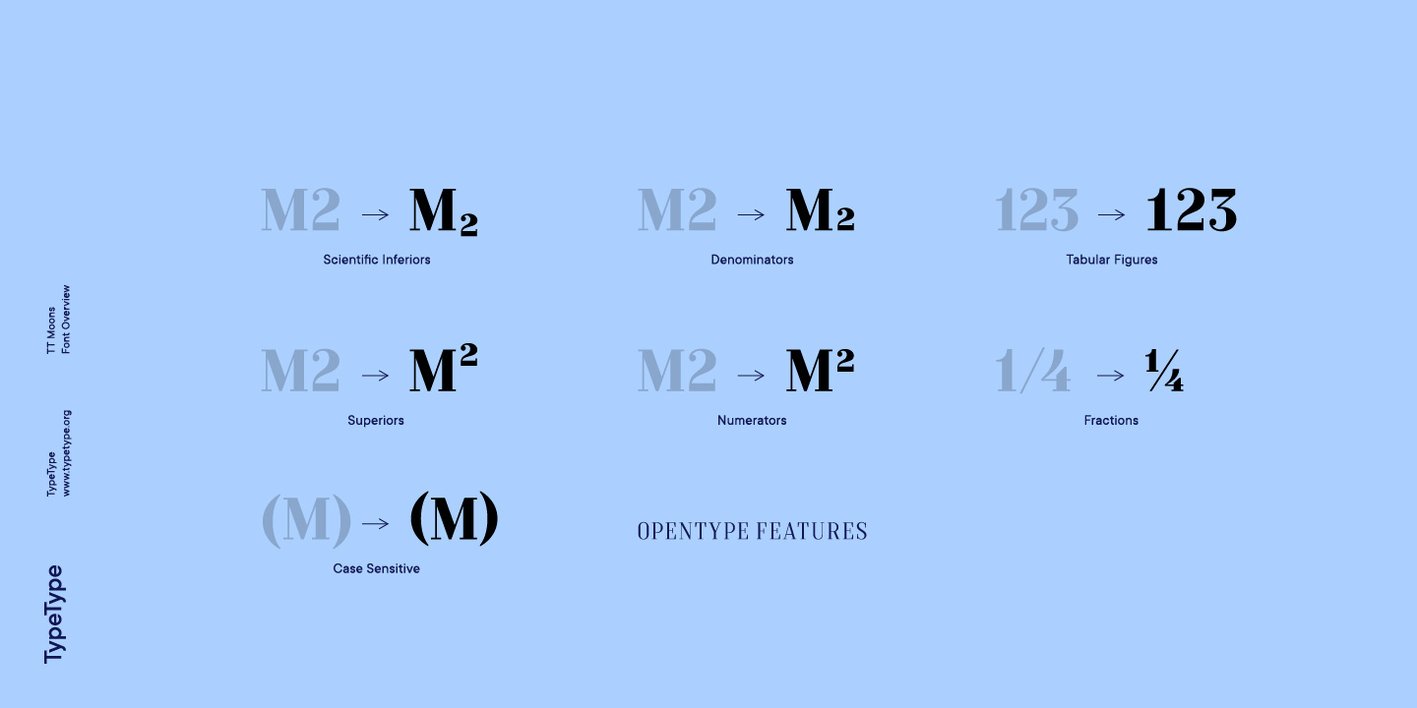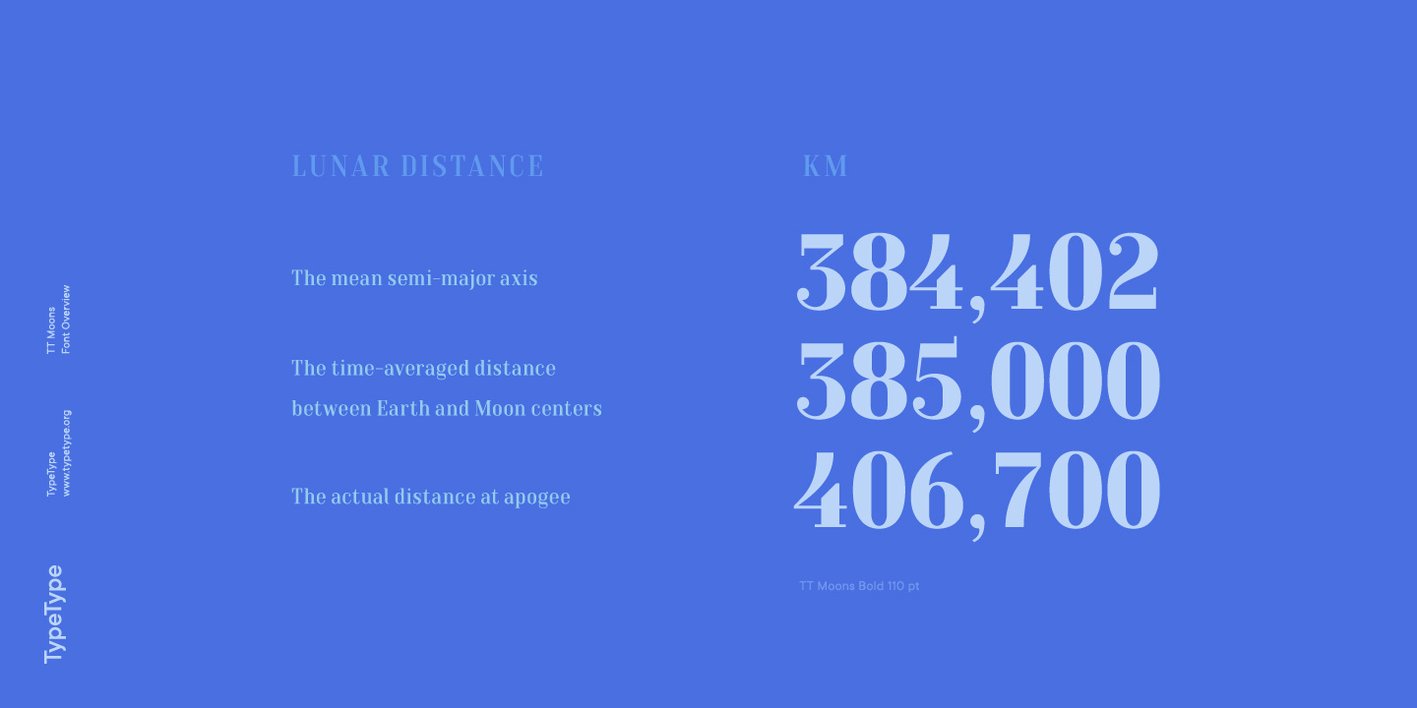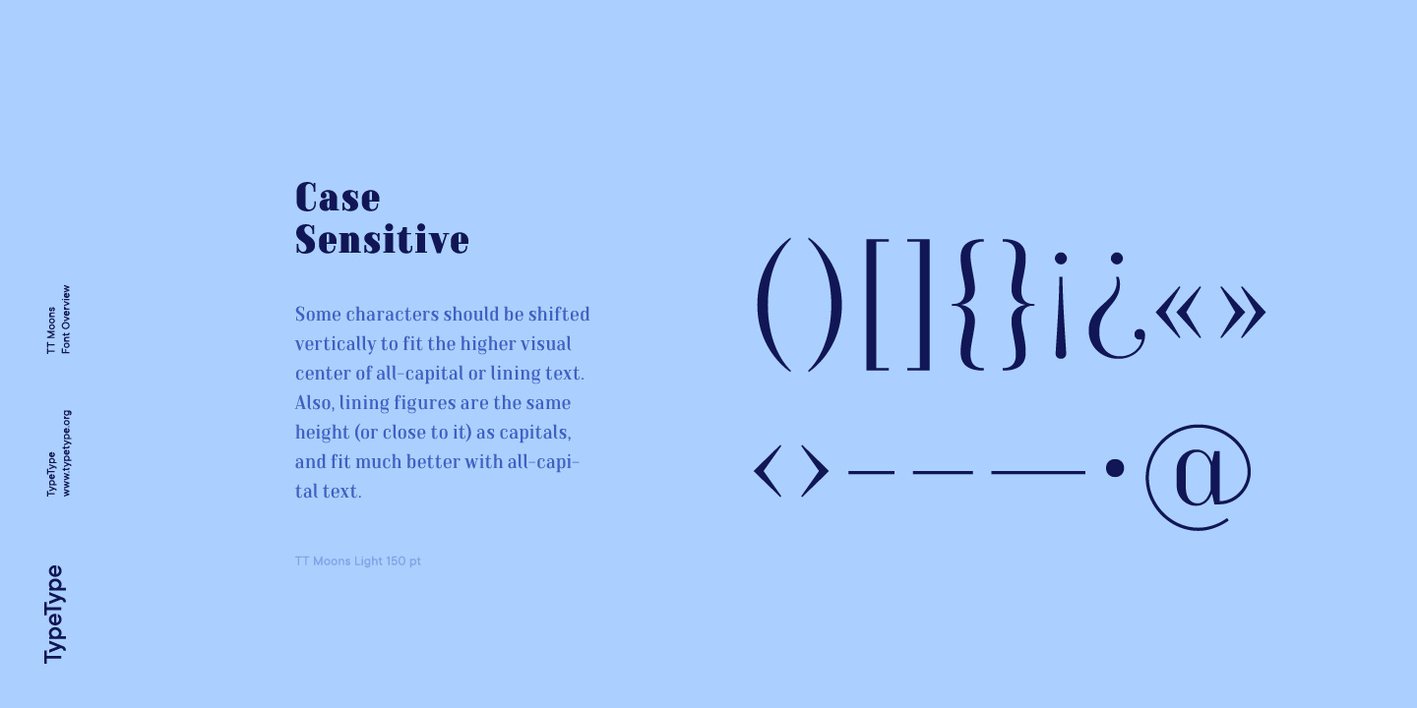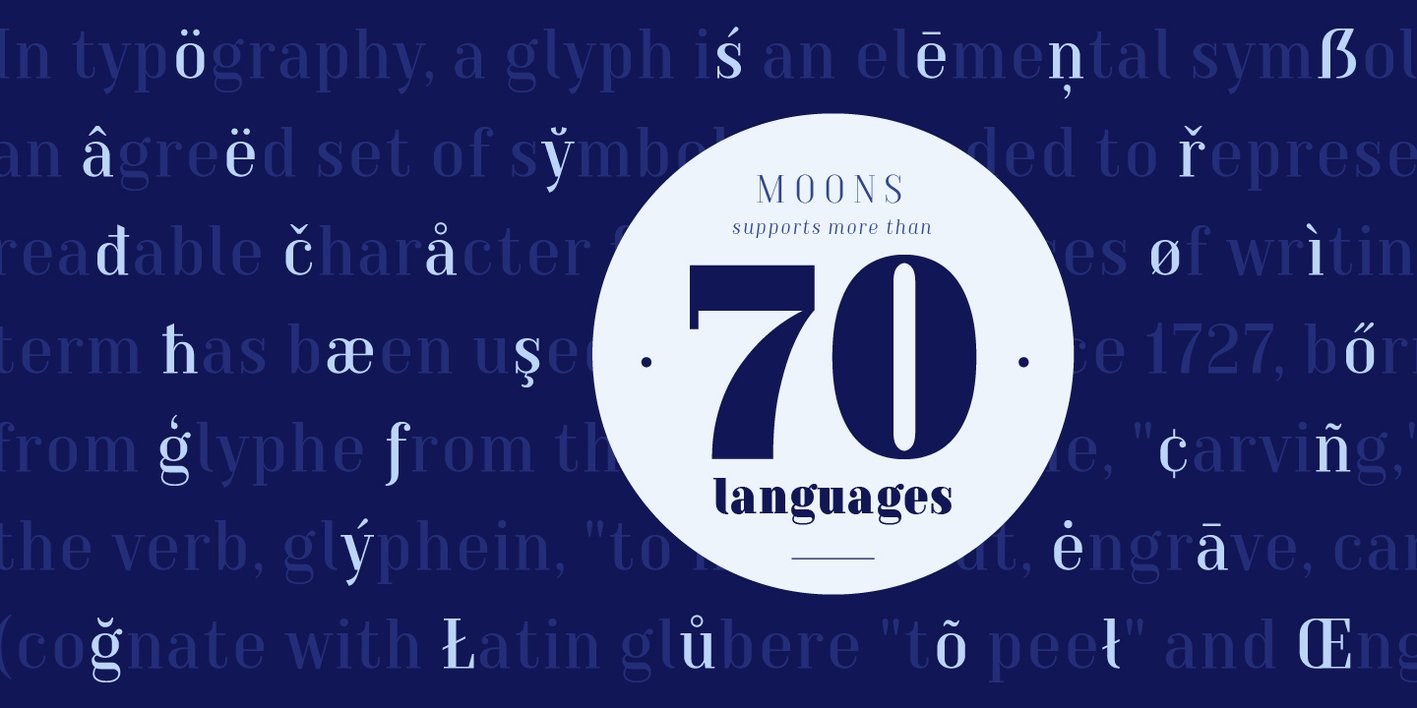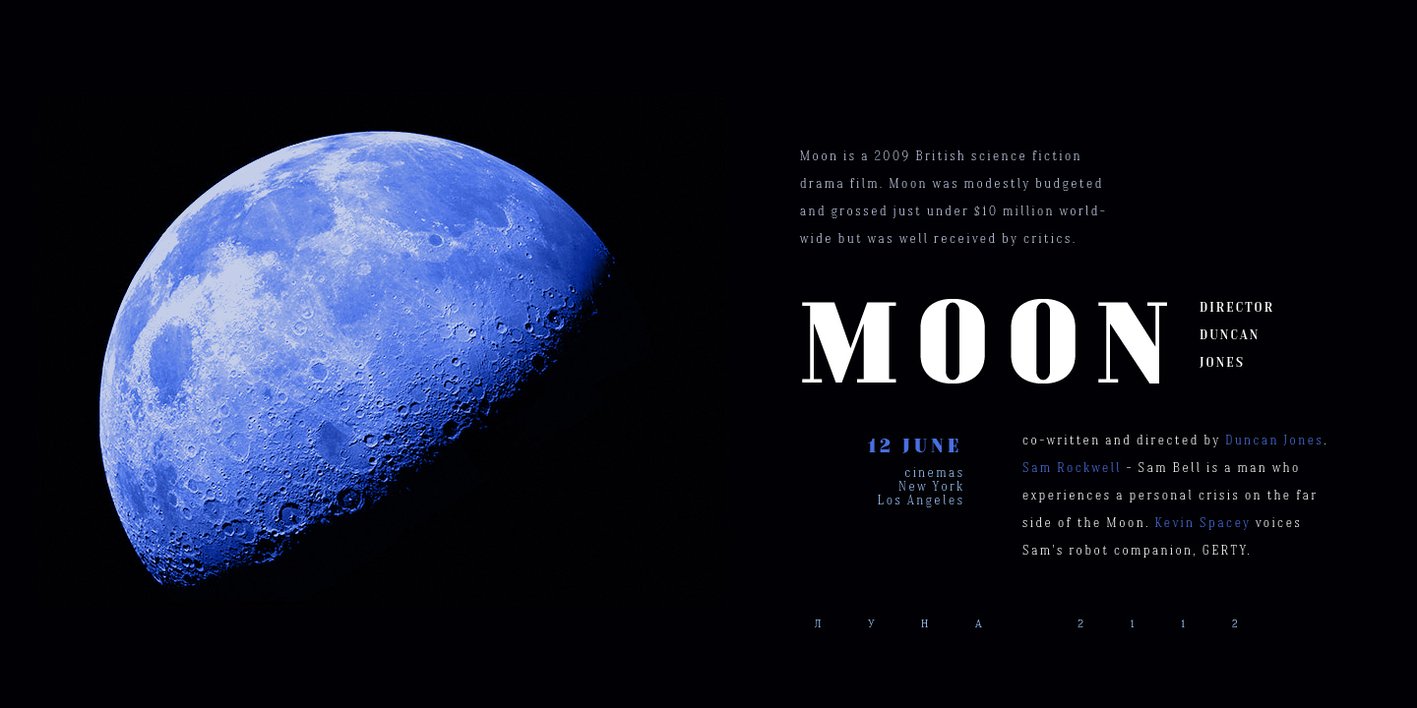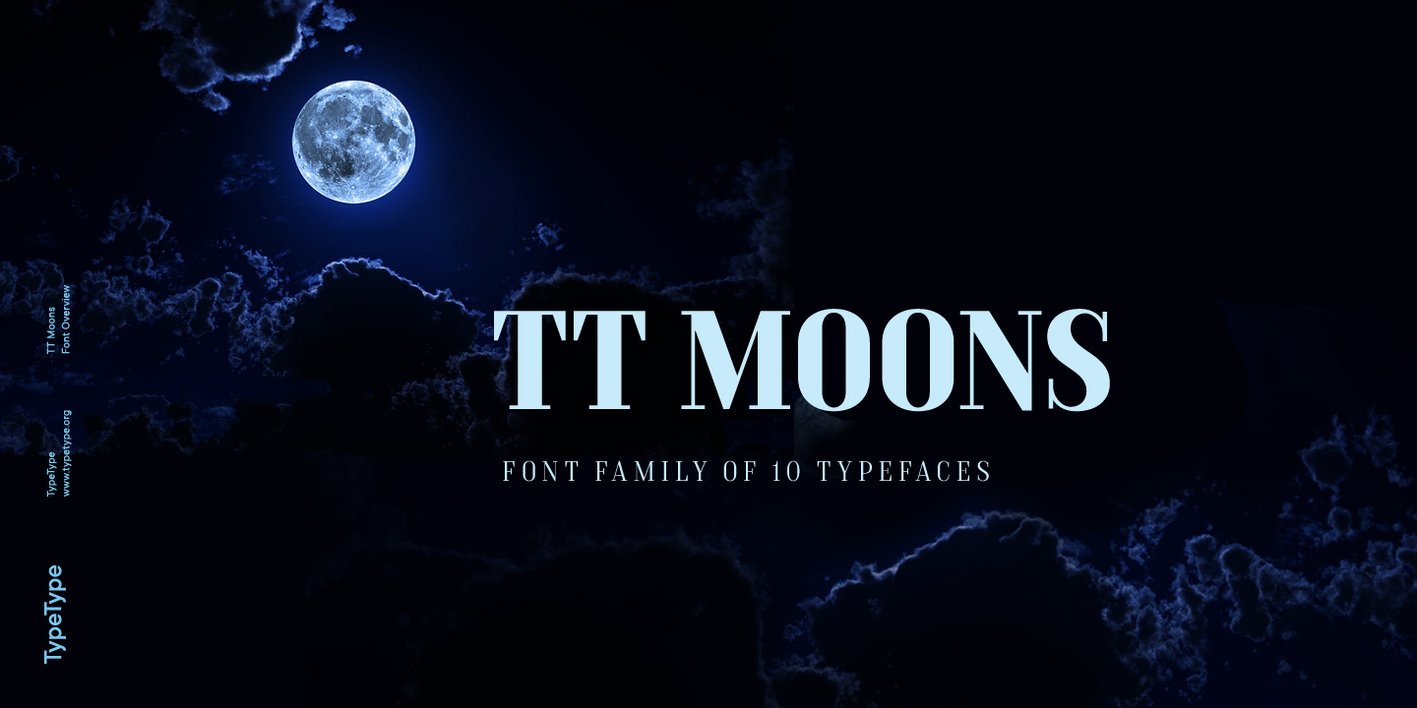
TT Moons Font
What’s new. • Case Sensitive Forms • Tabular Figures • Fractions • Numerators • Denominators • Superiors • Scientific Inferiors TT Moons is a slim, high-contrast serif. This font family works especially smart in classic design themes. TT Moons is a typeface of the glyptal modern font family. The ideal application range for this typeface is magazines, books and newspapers layout. Thanks to its narrow proportions and 5 weights (Thin, Light, Regular, Bold, Black), TT Moons perfectly fits into any contemporary digital design, such as interactive and product design, editorial and corporate web design. This font family is the real work helper and your joker when you need to combine contemporary and classic styles.